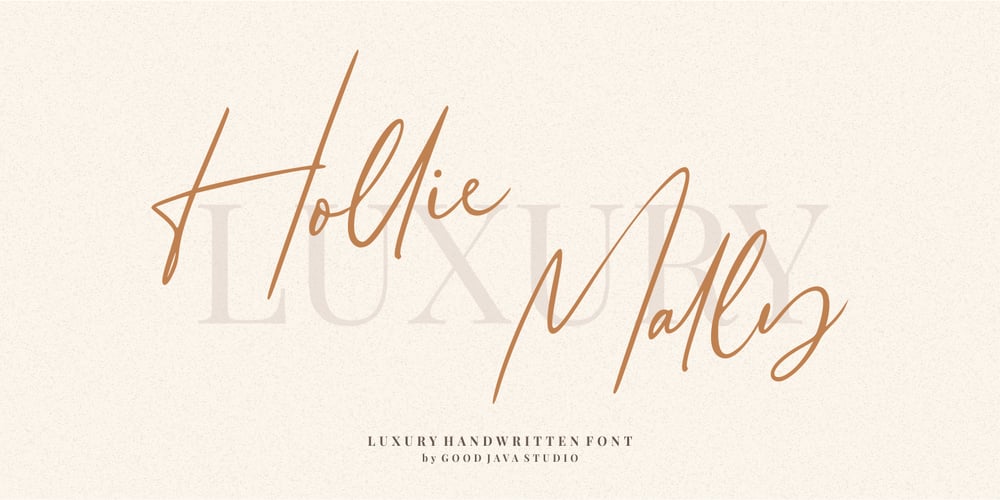
Hollie Mally Font Family was designed by Good Java and published by Good Java Studio. Hollie Mally contains 1 styles and family package options. Hollie Mally handwritten font is a natural & modern script font. It’s perfect for logos, invitations, stationery, wedding designs, social media posts, advertisements, product packaging, product designs, label, photography, watermark, special events or anything. This font includes ligatures and Multilingual support. What are the advantages of Hollie Mally? – Very simple installation – PUA Encoded open – Very great for branding, logotype, handlettering, invitations, or fashion branding. – Multilingual Support – Support for Adobe Illustrator, Corel Draw, Indesign or Adobe Photoshop – Support for MAC or WINDOWS